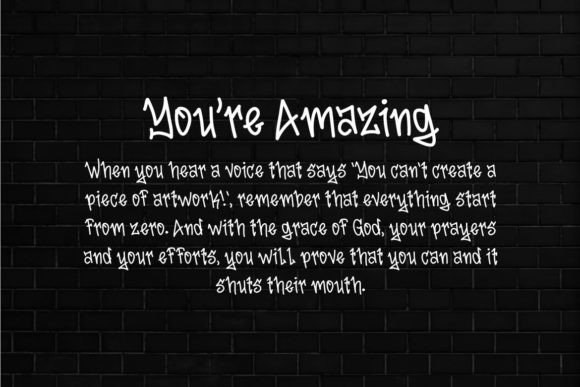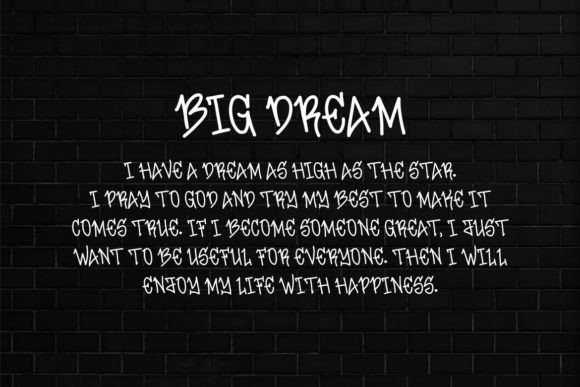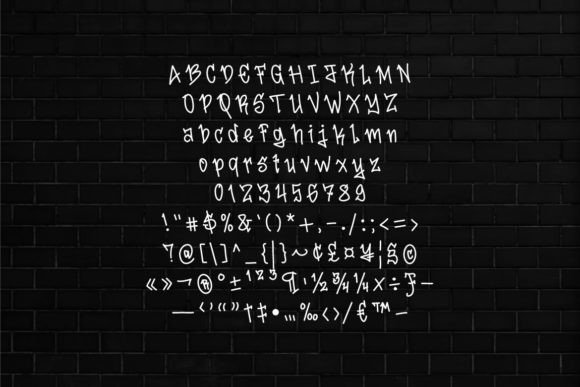
Introduction to Jyms Steak Font Font
Fonts play a crucial role in design, and the Jyms Steak Font font is a typeface that brings both character and versatility to any project. Whether you’re working on a branding project, a website, or a print design, the Jyms Steak Font font offers a unique style that can elevate your work.
This display font is bold and eye-catching, with a unique style that stands out.
Jyms Steak is perfect for headlines and titles, adding an edge to your design .
Key Features of Jyms Steak Font Font
Why Choose Jyms Steak Font Font?
The Jyms Steak Font font is more than just a typeface – it’s a design tool that helps you communicate your message with style and clarity. Its unique character set and versatile design make it suitable for a wide range of applications, from elegant invitations to bold headlines.
With its carefully crafted letterforms and balanced proportions, the Jyms Steak Font font ensures readability and visual appeal across all mediums.
What makes Jyms Steak Font font special?
The Jyms Steak Font font stands out with its unique design, exceptional readability, and versatility across various design applications.